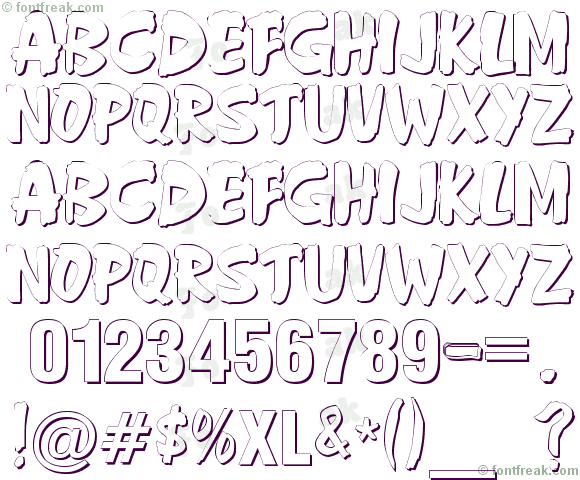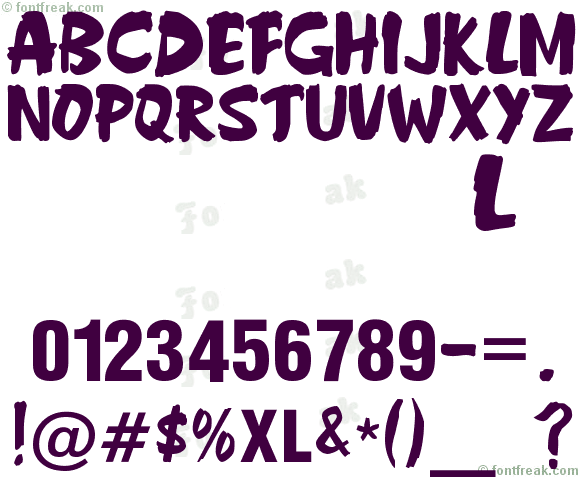
Anderson Fireball XL5 Shadow
Anderson Fireball XL5
The Anderson Fireball font, created by the talented designer Steve Ferrera, is a striking display typeface that captures attention with its bold and dynamic character. This freeware font showcases a unique blend of modern and retro influences, making it an ideal choice for various creative projects. The Anderson Fireball features a robust stroke weight with a strong contrast that enhances its visual impact. The letters are well-spaced, ensuring high legibility while maintaining an energetic aesthetic, which is further emphasized by its shadowed effect, lending depth and dimension to the typography.
This font is perfect for a range of specific use cases. It works exceptionally well on movie posters, where its eye-catching style can draw in viewers and set the tone for the film. Additionally, Anderson Fireball is an excellent choice for promotional materials such as flyers and banners, particularly for events that embrace a vibrant or retro theme. It can also elevate the design of restaurant menus, giving them a unique flair that stands out to diners. Graphic designers and content creators will find this font invaluable for crafting logos and branding elements that demand attention.
The target audience for the Anderson Fireball includes graphic designers, small business owners, and creative individuals looking for a distinctive typeface to enhance their projects. Its versatility combined with its striking visual appeal makes it a go-to option for anyone aiming to make a statement.
What sets the Anderson Fireball font apart is its ability to merge boldness with a playful spirit, allowing it to shine in both formal and casual settings. Whether you're looking to make a lasting impression or convey a sense of fun, the Anderson Fireball font free download is a fantastic addition to any designer's toolkit.